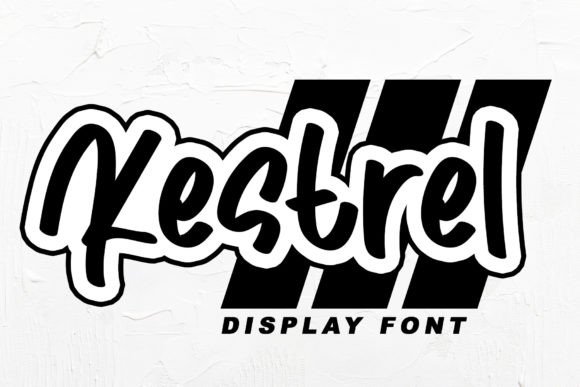
Kestrel: A Characterful Handwritten Font for Meaningful Celebrations
In the vast landscape of digital typography, finding a typeface that feels genuinely human is often a challenge. Most fonts strive for perfect uniformity, but true character often lies in the imperfections, the slight variations in stroke weight, and the organic flow of a hand-drawn letter. This is where Kestrel steps in. More than just a collection of letters, Kestrel is a characterful and cute handwritten font designed to bring warmth and personality to your most important designs. Whether you are crafting a wedding invitation, designing a greeting card, or adding a personal touch to a brand identity, understanding how to leverage this unique typeface can transform your creative output.
The Essence of Kestrel: Beyond Standard Typography
At its core, Kestrel is dedicated to awesome celebration days. It was created with the specific intent of capturing the joy and intimacy associated with life's milestones. Unlike rigid serif or sans-serif fonts that convey information efficiently but emotionally neutrally, Kestrel speaks directly to the heart. Its design mimics the natural rhythm of handwriting, offering a soft, characterful touch that resonates with viewers on an emotional level.
When you select Kestrel for a project, you are choosing a font that tells a story. The curves are gentle, the ascenders and descenders have a playful bounce, and the overall aesthetic is undeniably cute without being childish. This balance makes it incredibly versatile for contexts where professionalism needs to be softened by approachability. For business owners looking to humanize their brand or designers aiming to create memorable stationery, Kestrel offers a solution that feels both crafted and authentic.
Understanding the Technical Advantage: PUA Encoding
One of the most significant yet often overlooked features of Kestrel is its technical architecture. This font is PUA encoded, which stands for Private Use Area. In simpler terms, this means the font contains a rich library of glyphs and ligatures that go beyond the standard keyboard characters. Because these special characters are mapped to the PUA section of the Unicode standard, they do not conflict with standard text encoding, ensuring compatibility across various design software.
For the average user, what does PUA encoding actually mean? It means you can easily access all the glyphs and ligatures included in the font without needing complex workarounds or external plugins. You can insert decorative swashes, alternate letterforms, and unique punctuation marks directly into your text editor or design tool. This capability allows for a high degree of customization. Instead of settling for a generic look, you can mix and match different versions of the same letter to create a truly bespoke typographic composition.
- Seamless Integration: Access special characters directly from your keyboard mapping or character palette.
- Design Flexibility: Swap standard letters for more decorative alternatives instantly.
- Consistency: Ensure that all special glyphs render correctly across different devices and platforms.
Ideal Applications for Kestrel
The versatility of Kestrel makes it suitable for a wide array of projects, particularly those centered around connection and celebration. However, knowing when to use it is just as important as knowing how to use it. Here are some of the most effective real-world scenarios where this font shines.
Wedding Invitations and Stationery
Perhaps the most natural home for Kestrel is in the realm of weddings. An invitation sets the tone for the entire event, and using a font that feels personal and warm can immediately communicate the couple's style. Kestrel is perfect for writing wedding invitations because its handwritten style suggests a personal note rather than a mass-produced flyer. Imagine the names of the couple written in elegant, flowing script, paired with the event details in a slightly bolder weight of the same family. The result is an invitation that feels intimate and cherished.
Greeting Cards and Personal Notes
Beyond weddings, Kestrel excels in creating greeting cards for birthdays, anniversaries, baby showers, and holidays. The "cute" aspect of the font adds a layer of playfulness that is ideal for congratulatory messages. When designing a birthday card for a child or a heartfelt note for a friend, the soft curves of Kestrel make the message feel like it was penned by hand, even if it is digitally printed. This perceived effort enhances the emotional value of the card.
Brand Identity for Lifestyle Businesses
For business owners in the lifestyle, wellness, or creative sectors, Kestrel can serve as a powerful branding tool. A bakery, a boutique clothing store, or a handmade jewelry brand can benefit immensely from incorporating this font into their logo or packaging. It signals that the business values craftsmanship and personal attention. By using Kestrel in headers or taglines, brands can differentiate themselves from competitors who rely on sterile, corporate typography.
- Packaging Design: Use Kestrel for product labels to evoke a sense of artisanal quality.
- Social Media Graphics: Create eye-catching posts that stand out in crowded feeds with a friendly, handwritten vibe.
- Merchandise: Print the font on tote bags, mugs, or t-shirts for a casual, approachable aesthetic.
Evaluating Suitability: Strengths and Considerations
While Kestrel is a powerful tool, it is not a one-size-fits-all solution. Like any specialized font, it has strengths and limitations that should be considered before committing to a design project. Understanding these nuances will help you maximize its potential while avoiding common pitfalls.
Strengths of the Design
The primary strength of Kestrel is its ability to evoke emotion. In a digital world dominated by clean lines and geometric shapes, the organic nature of this font provides a refreshing contrast. Its readability at larger sizes is excellent, making it perfect for headlines and display text. Furthermore, the PUA encoding ensures that designers have access to a wealth of decorative options, allowing for creative freedom that standard fonts simply cannot offer.
Another significant advantage is its adaptability. While it is inherently "cute," the character of the font can be adjusted through spacing and pairing. When paired with a simple, neutral sans-serif font for body text, Kestrel creates a balanced hierarchy that guides the reader's eye without overwhelming them.
Considerations and Limitations
Despite its charm, Kestrel is not ideal for long-form body text. Handwritten fonts can become difficult to read when used in large paragraphs, especially at smaller point sizes. The irregularities that give the font its character can also cause eye strain if the reader has to decipher many words in quick succession. Therefore, it is best reserved for headlines, pull quotes, and short messages.
Additionally, the "cute" aesthetic may not align with every brand voice. If you are working on a project that requires a serious, authoritative, or highly formal tone—such as a legal document or a financial report—Kestrel might undermine the intended message. It is crucial to evaluate the context of your project and ensure that the font's personality matches the content's purpose.
Practical Expectations for Users
When working with Kestrel, users should expect to spend some time exploring the available glyphs. Because of the PUA encoding, the full range of the font's capabilities might not be immediately obvious. Taking the time to learn the specific key mappings or character map entries for ligatures and alternates will unlock the font's true potential. Patience and experimentation are key to mastering this typeface.
Conclusion: Embracing the Human Touch
In a world increasingly driven by automation and standardization, there is a growing desire for things that feel real and human. Kestrel answers this call by providing a font that is characterful, cute, and deeply expressive. Whether you are celebrating a wedding, sending a heartfelt card, or building a brand that values connection, this font offers a unique way to communicate your message.
By leveraging its PUA-encoded features, you gain access to a world of custom glyphs and ligatures that allow for endless creativity. While it requires thoughtful application to ensure readability and tonal appropriateness, the rewards are well worth the effort. Kestrel is more than just a design element; it is a tool for storytelling, bringing a soft, characterful touch to the moments that matter most. As you explore your next design project, consider whether a handwritten approach could elevate your work, and let Kestrel guide your pen—or cursor—toward something truly special.